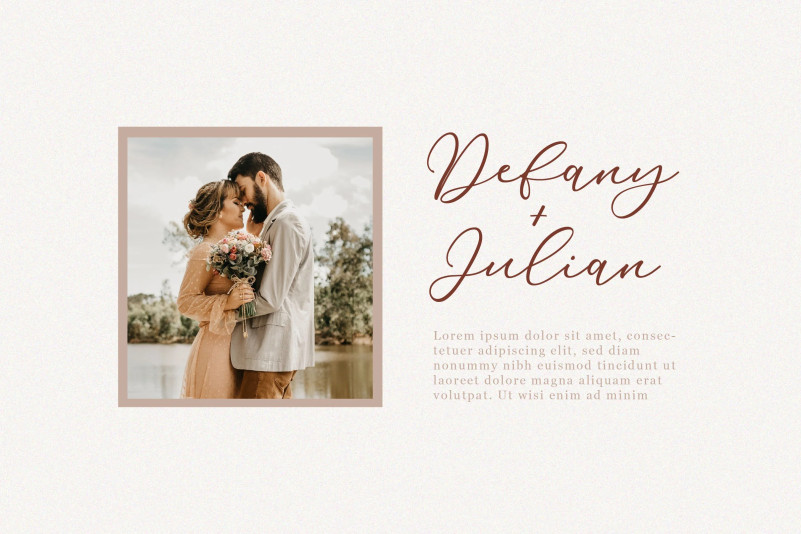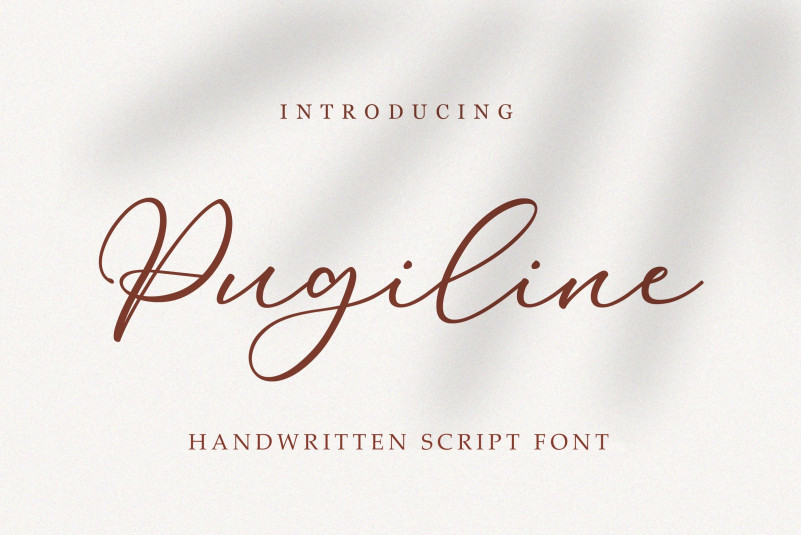
Pugiline Font
Pugiline Script Font, is a sweet, whimsical, flowing and thin script font. Featuring characters that dance along the baseline, this font will add a luxury spark to any design project that you wish to create!
– Uppercase, Lowercase, Numeral & Punctuation
– Alternate Letters, Ligature & Swash/Tail